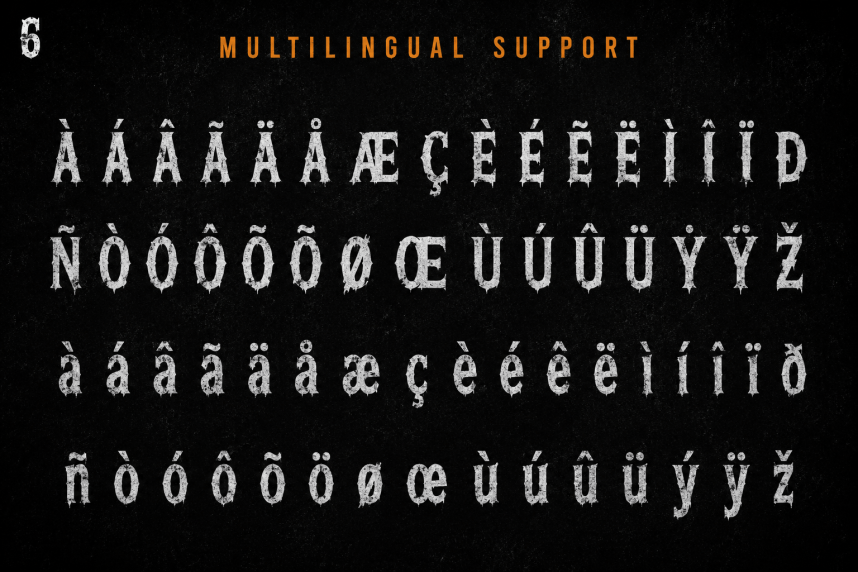
Shadow Pumpkin — Modern Halloween Font is a bold and haunting Halloween display font with a distressed, rough, and sinister character. Designed to bring a dark and eerie atmosphere to your typography, this font is perfect for creating eye-catching Halloween and horror-themed designs.
Its sharp details and distressed texture make SHADOW PUMPKIN a great choice for both digital and print projects.
Perfect for:
Halloween & horror designs
Posters & flyers
Horror movie titles
Logo & branding
T-shirts & apparel
Album covers
Merchandise
Packaging
Social media graphics
Event designs
Dark & gothic artwork
Give your designs a dark, creepy, and unforgettable look with SHADOW PUMPKIN.